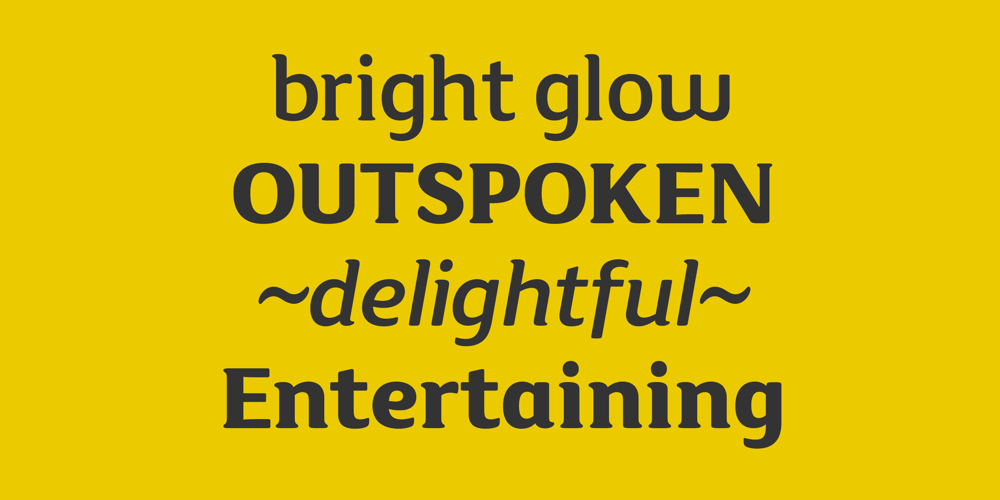
FS Maja
FS Maja font
FS Maja Font Family was designed by Jason Smith and published by Fontsmith. FS Maja contains 4 styles and family package options. YouthfulFontsmith received a brief to develop a font that would form part of the broadcast identity for the UK’s first digital Freeview channel – E4. It needed to work seamlessly in text and display, both in print and on-screen, and please the eye of the target audience, 18-34-year-olds. So, young, fresh and informal.No problem. Except for one thing: the timing.DaughterAs he worked on FS Maja, Jason Smith was occupied by another imminent deadline: the birth of his third child. The pressure was mounting, but rather than let it get to him, Jason embraced the challenge and made light of the tension, fashioning a bright, bubbly, entertaining type with a personality made for memorable headlines.Beautifully randomFS Maja’s soft, rounded shapes and assured, fluent lines encompass lots of notable features that contribute to its warm, fun-loving personality, including: a very large x-height; a short, rounded serif to allow for close spacing and give texture to body text; a slight convexity, or bulge, in the stroke terminals; a calligraphic fluidity in the entry to the down-stroke of most lowercase letters; open, generous curves, especially in the “B”, “P” and “R”; and a “w” made of two “u”s.